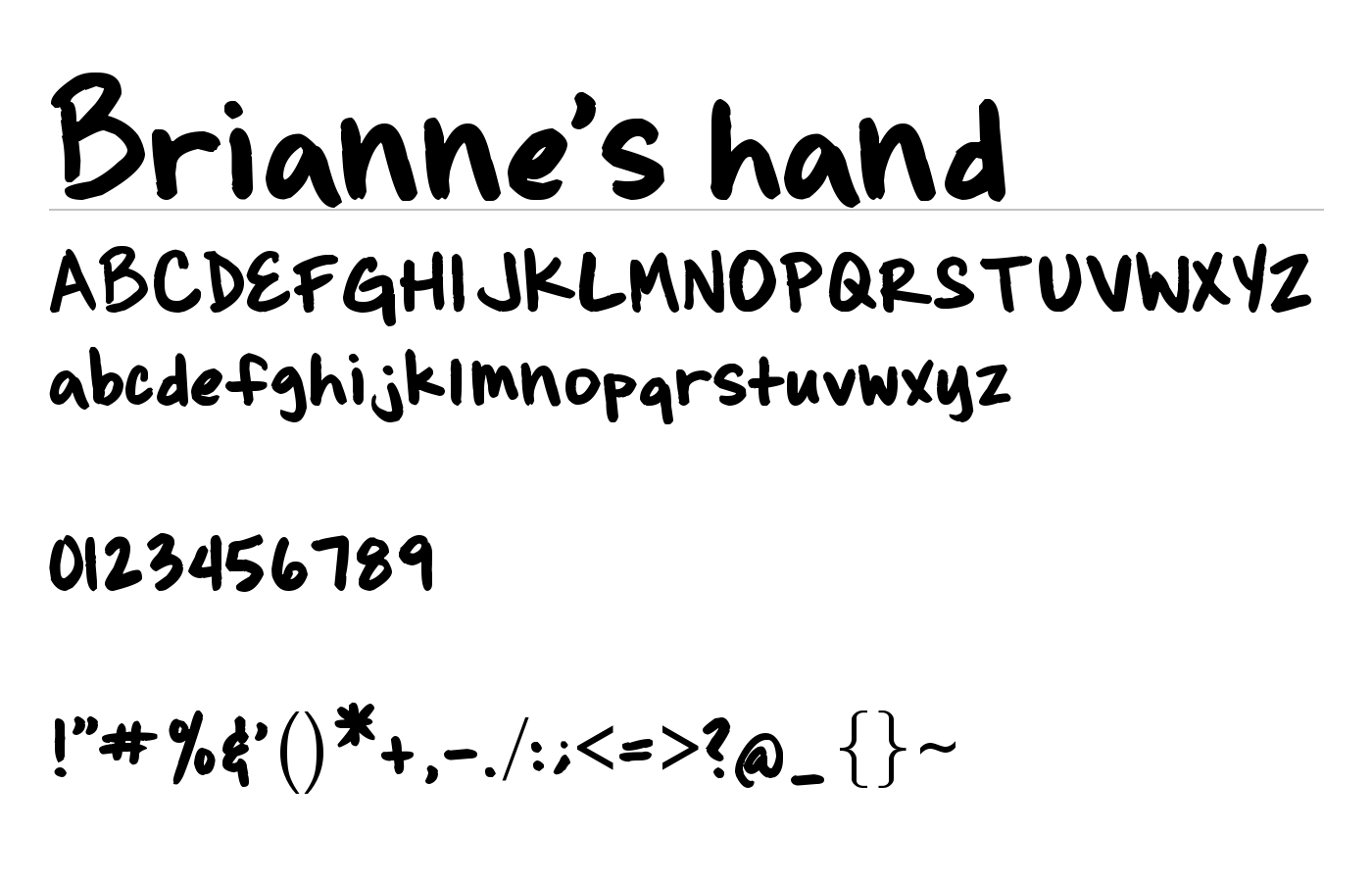
Brianne's Hand is a casual, friendly handwritten font that feels warm and personal with its thick, rounded strokes and irregular letter shapes. Its informal style and moderate weight make it ideal for playful branding, invitations, children's materials, and creative projects that seek a relaxed, approachable vibe. This font works best in headlines and short text where a hand-crafted look adds charm and character.
Brianne's hand Font